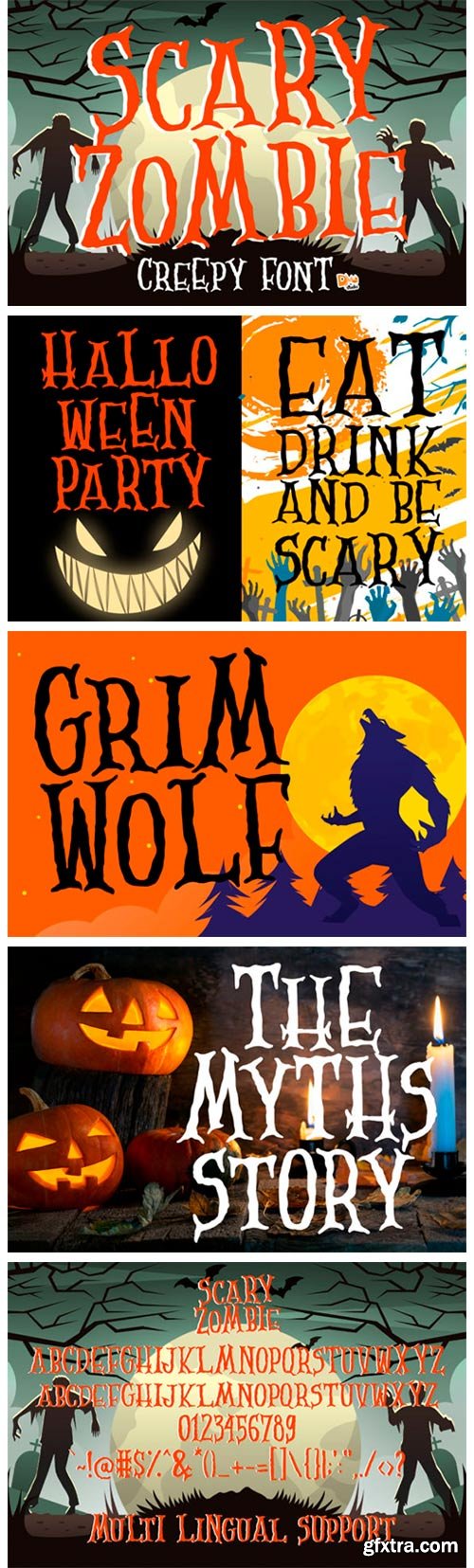
Scary Zombie Font
Scary Zombie is a unique and interesting display font. A little bit quirky, this font looks incredibly adept on a wide variety of contexts!